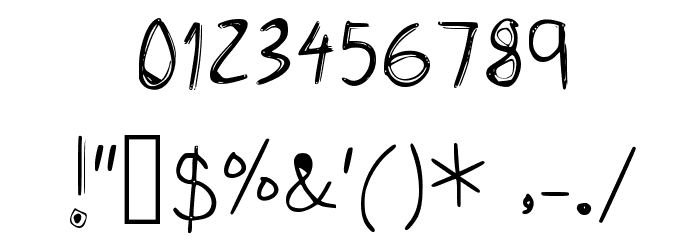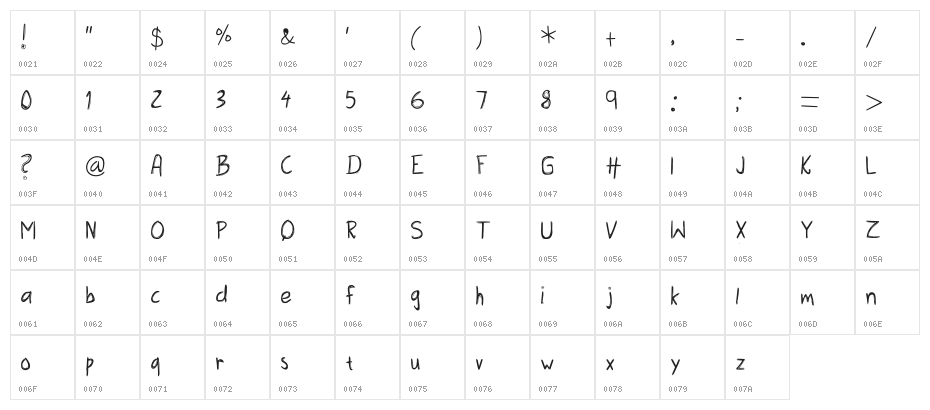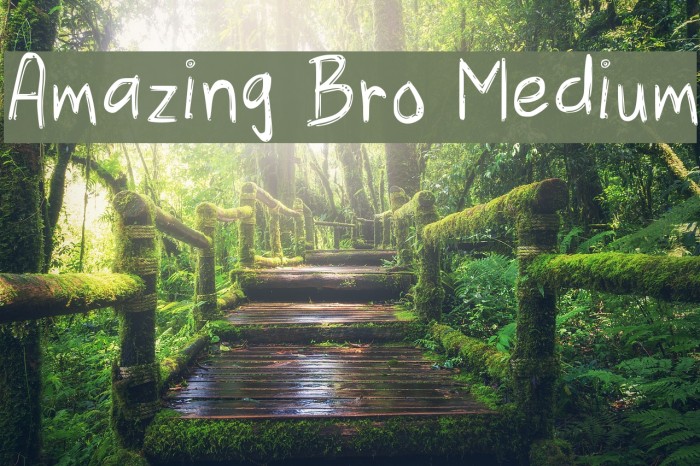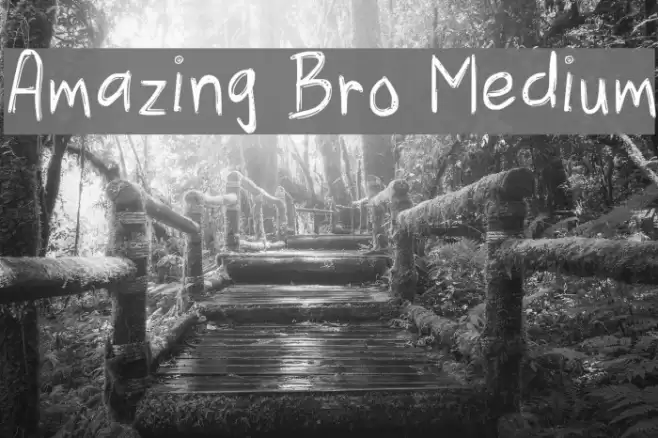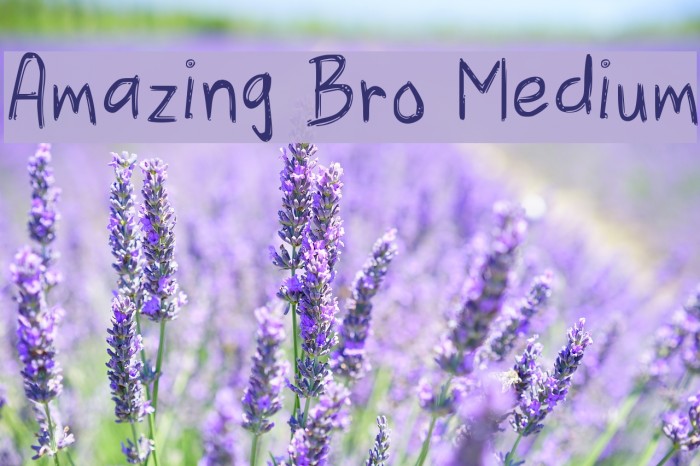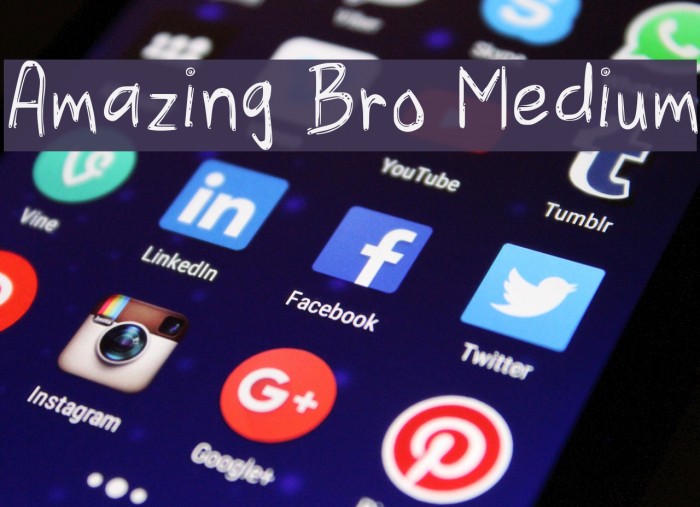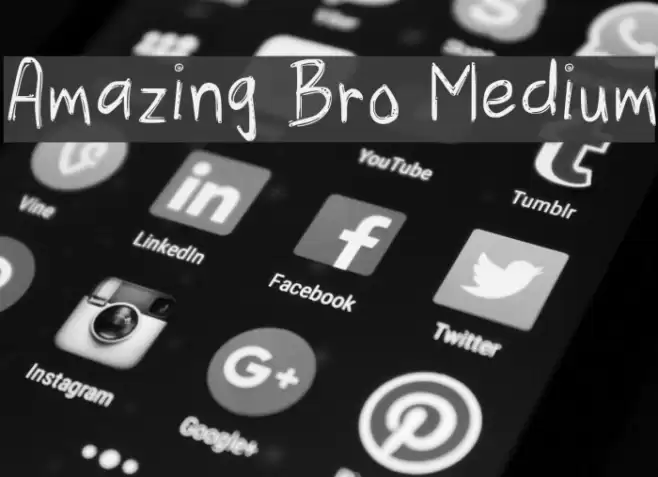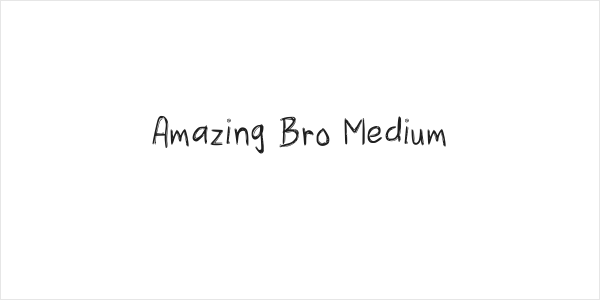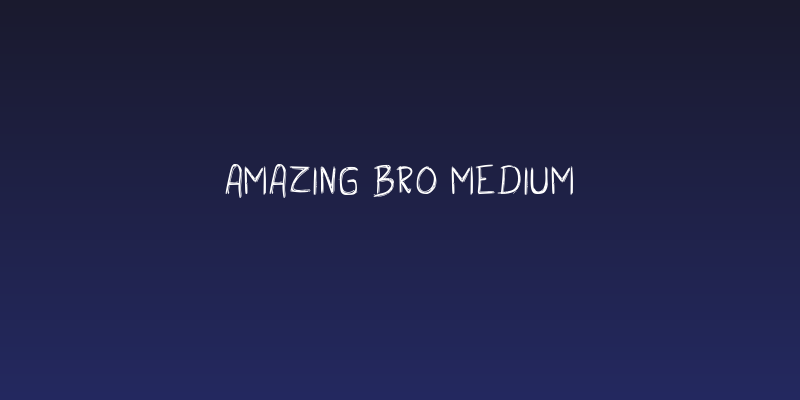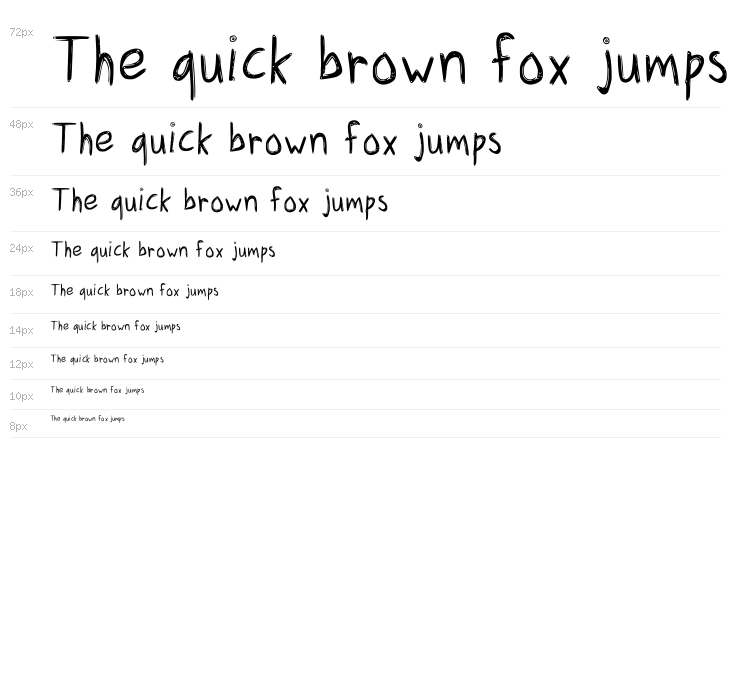
Amazing Bro Medium Font
Amazing Bro Medium Description
This font features a playful and hand-drawn aesthetic, characterized by its irregular strokes and casual appearance. The uppercase and lowercase letters maintain a consistent style, with a slightly rough texture that adds to its charm. The numbers and special characters follow the same design, ensuring a cohesive look across all elements. The font's informal style makes it ideal for projects that require a personal touch or a creative flair. Its unique character shapes and varying line thicknesses give it a dynamic and lively feel.
| Use Case | Headlines, Posters, Creative projects |
| Proposed Projects | Ideal for children's books, creative posters, greeting cards, and playful branding. |